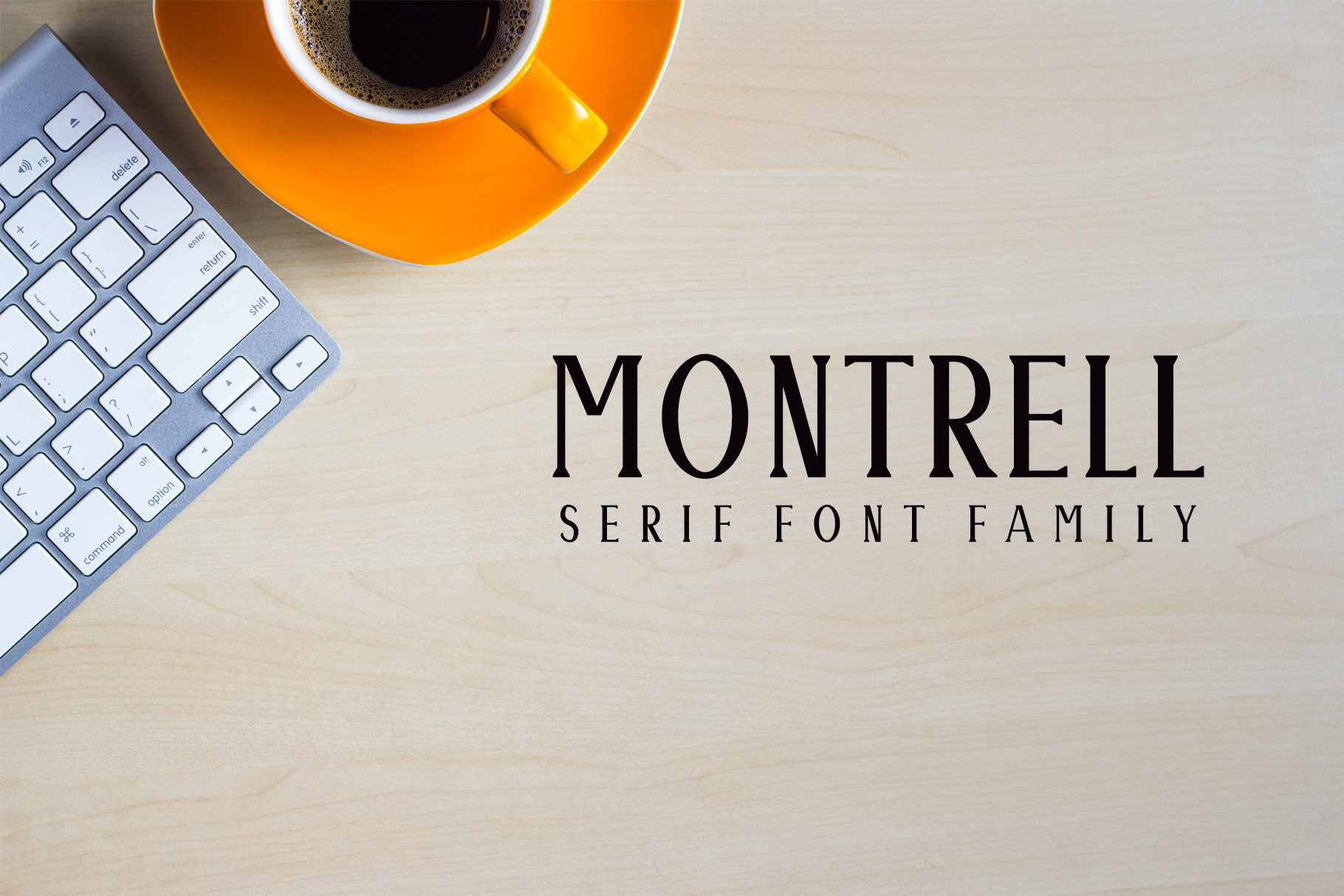
Montrell Serif 5 Font Family Pack
Montrell Serif Typeface is minimalist and beautiful serif font family of 5 weights and it features unique and modern serif look and feel. Perfect for gorgeous logos & titles, layouts & content, or large & small scale, It looks gorgeous in all caps with a wide-set spacing if you want to try a classy look, or beautiful on its own in capital and lowercase letters for something completely timeless.
- Font Weight: Regular, Light, Thin, Outline and Bold
Montrell Font Features:
- Uppercase Multilingual Letters
- Lowercase Multilingual Letters
- Non English Characters ( Latin Extended A )